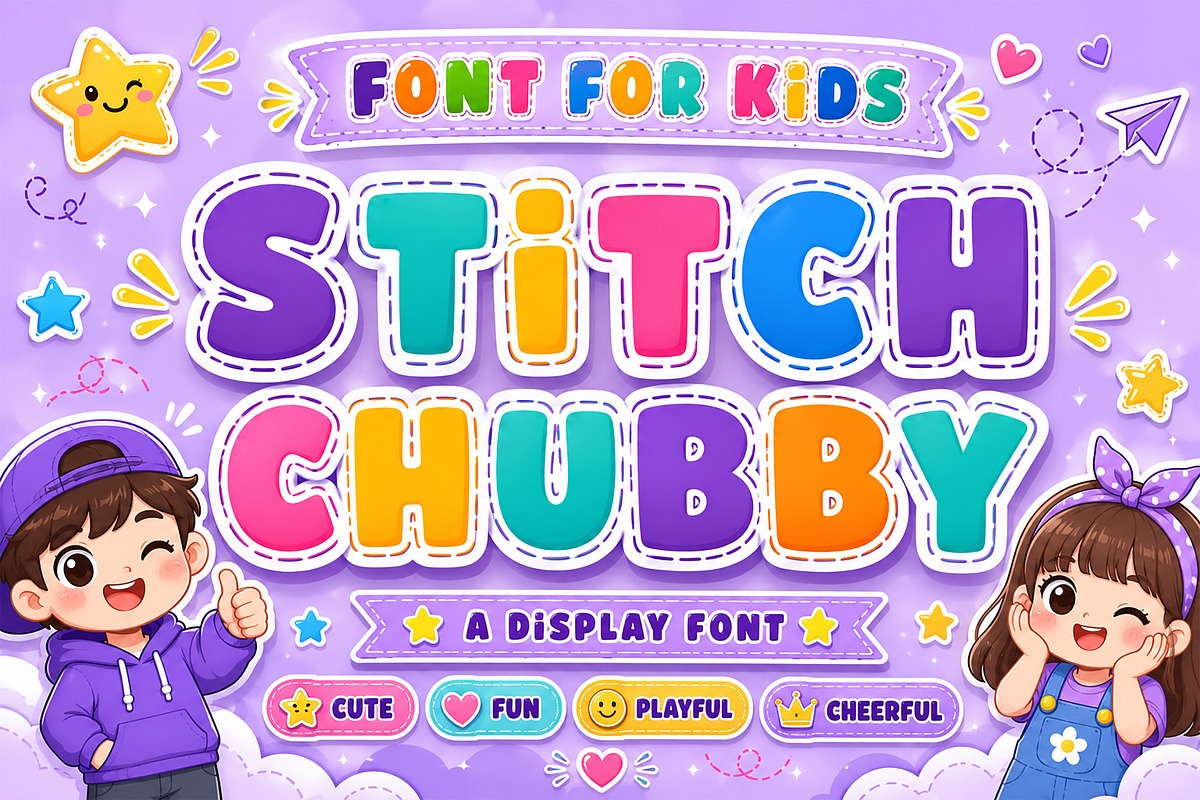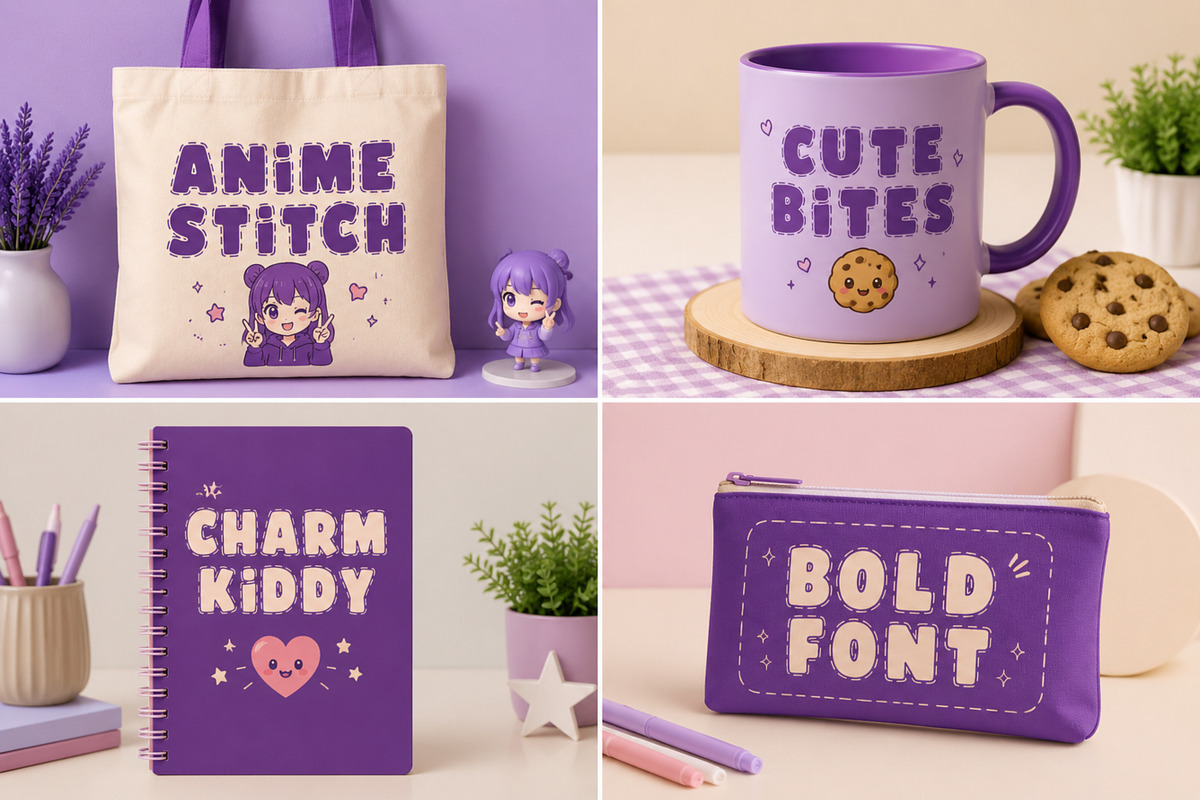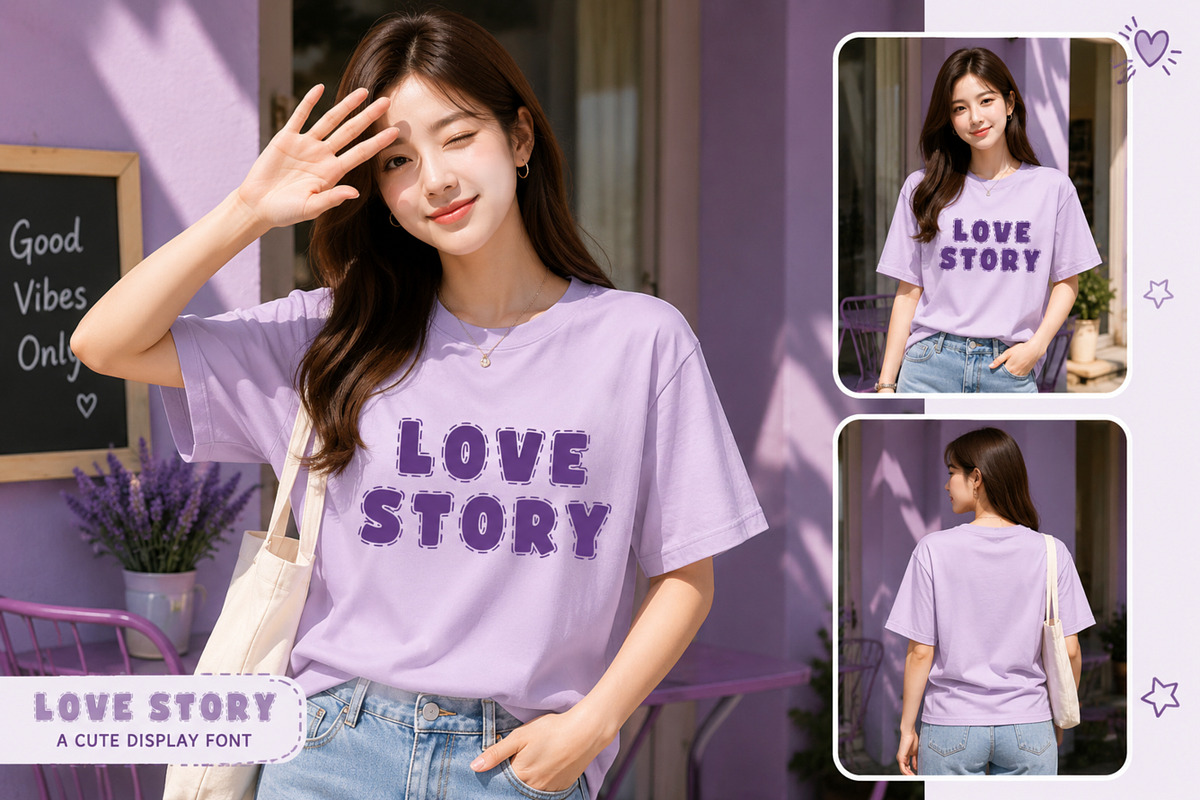
Stitch Chubby
Stitch Chubby is a fun and cheerful display font inspired by stitched doodle styles. With its bold, rounded shapes and playful outline details, this font is perfect for kids-themed designs, crafts, school projects, branding, and creative merchandise.
Its soft chubby characters and hand-stitched effect create a warm, friendly, and joyful look that works beautifully on t-shirts, mugs, posters, stickers, and more.
Add a cute and happy vibe to your projects with Stitch Chubby!
- Uppercase letters
- Cute stitched outline style
- Easy to read & playful shapes
- Perfect for kids & craft designs
Best For Kids products, T-shirt design, Stickers, Posters, Packaging, School projects, Branding, Social media